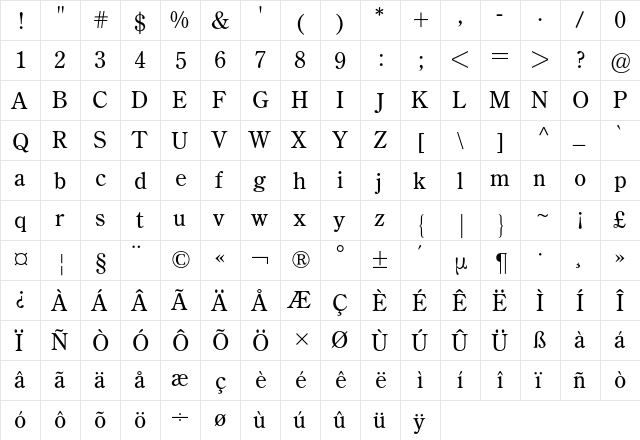
Century ATF Old Style BQ Regular
Design Context for Century ATF Old Style BQ Typeface
Century ATF Old Style BQ takes a measured approach to typography — its balanced proportions and neutral character make it a reliable workhorse for both digital and print work.